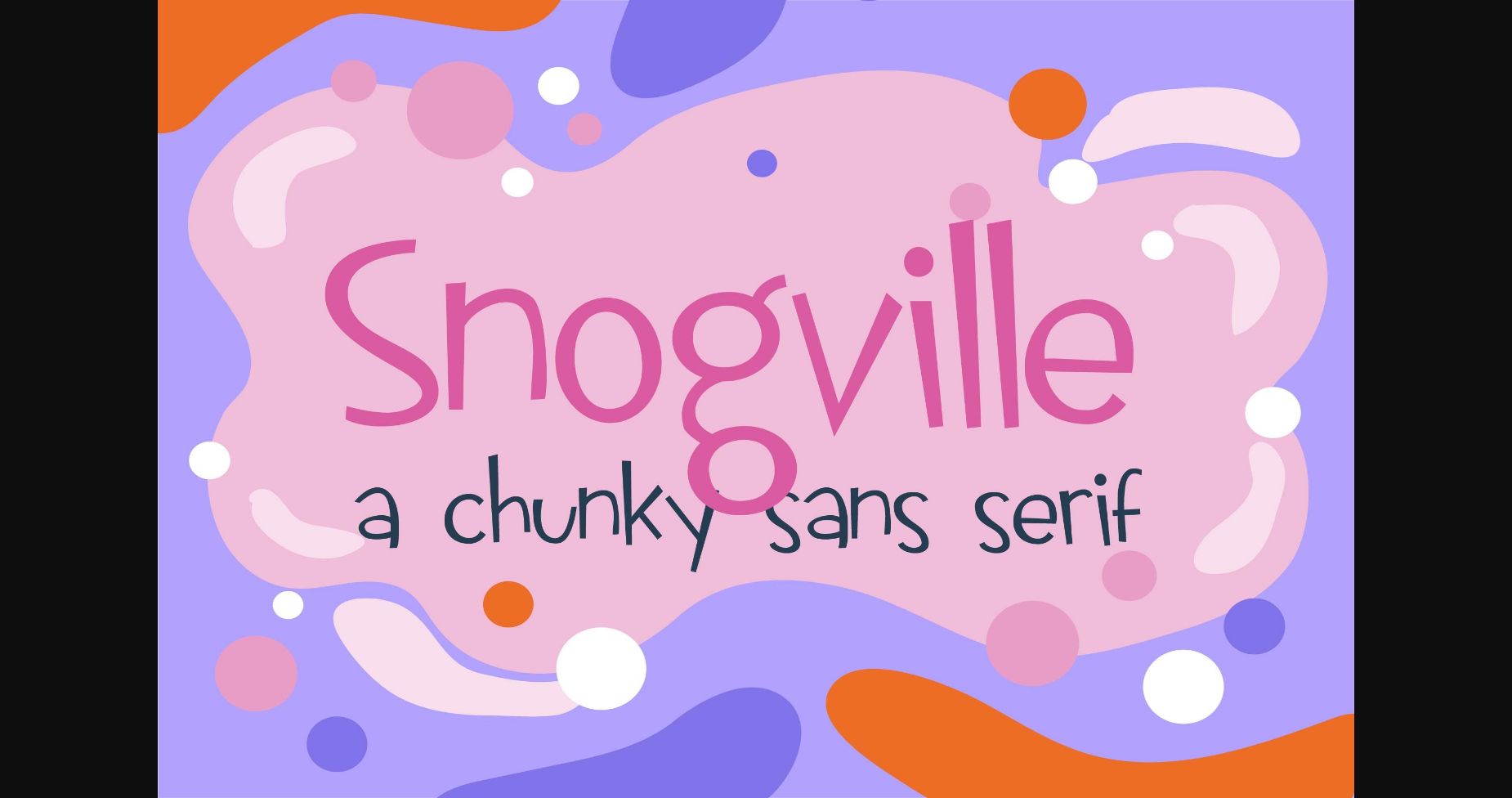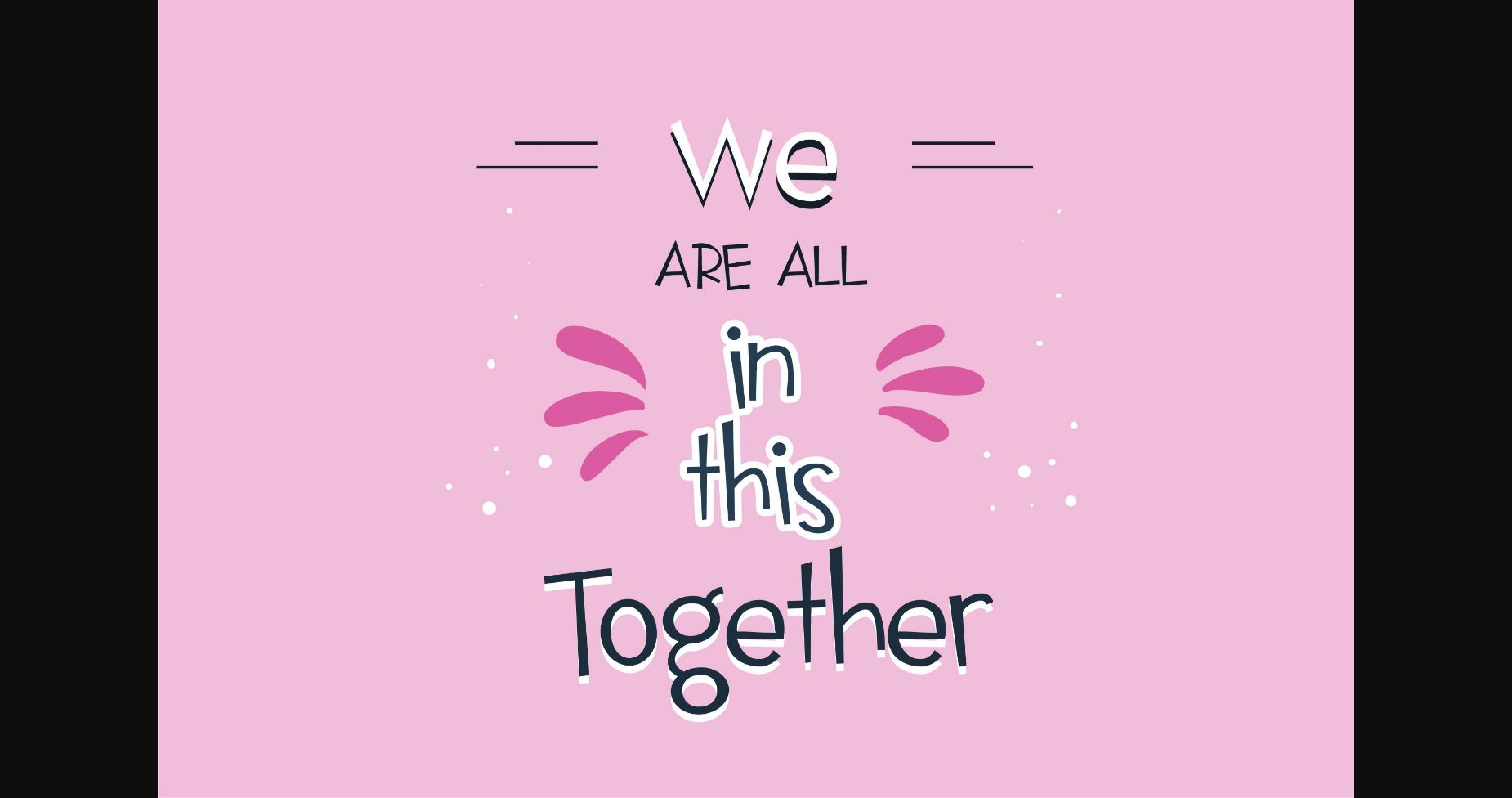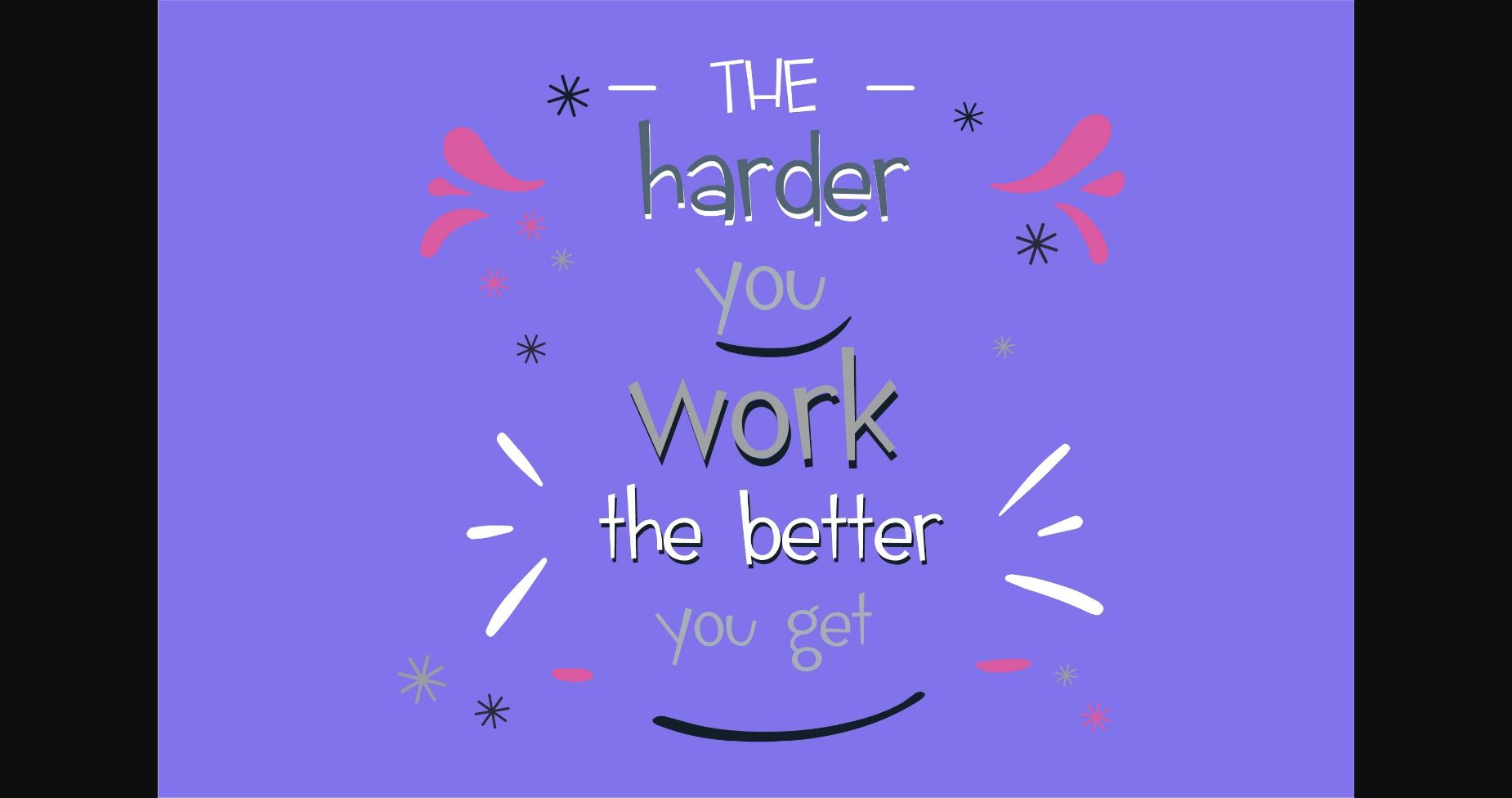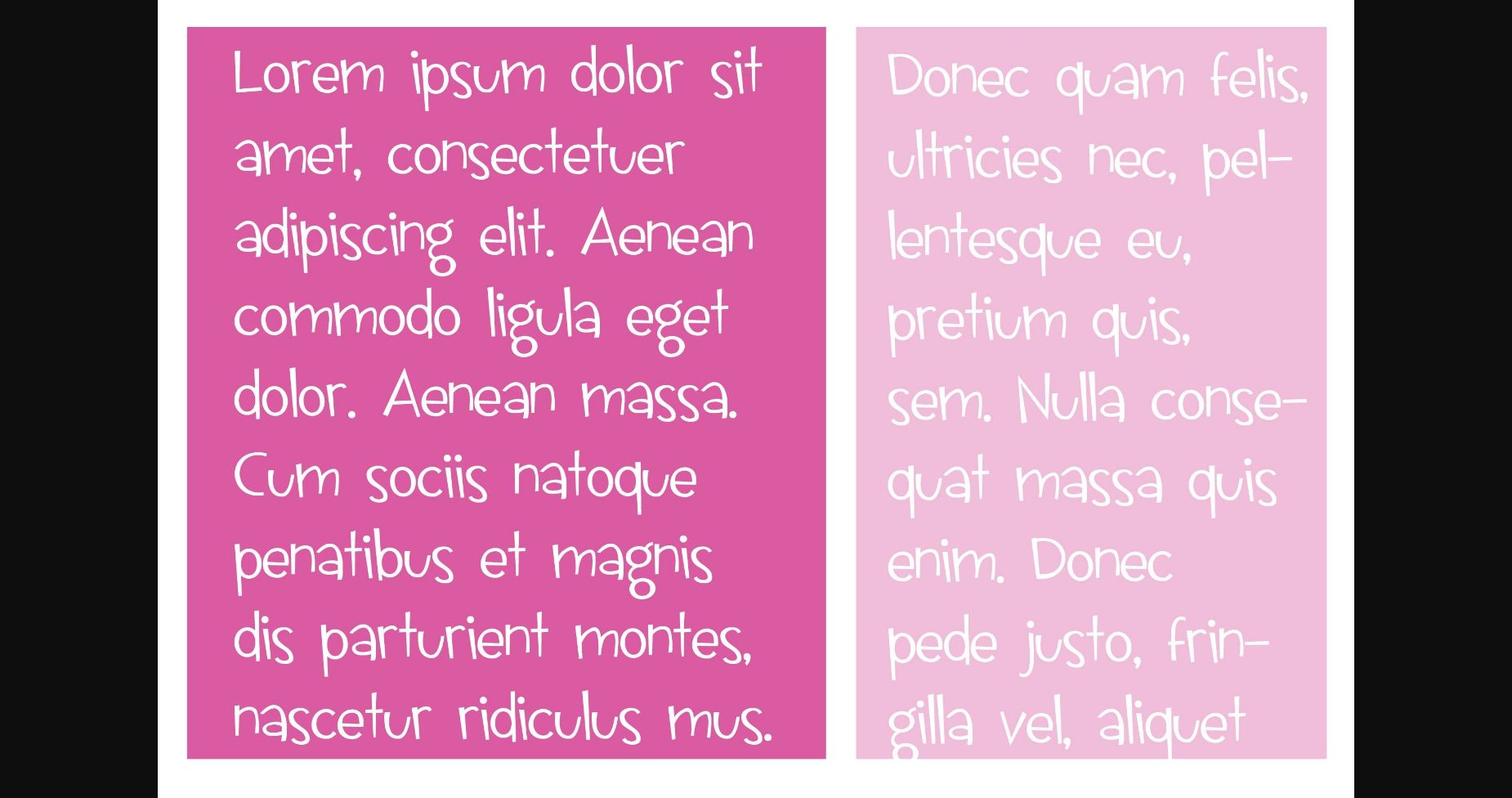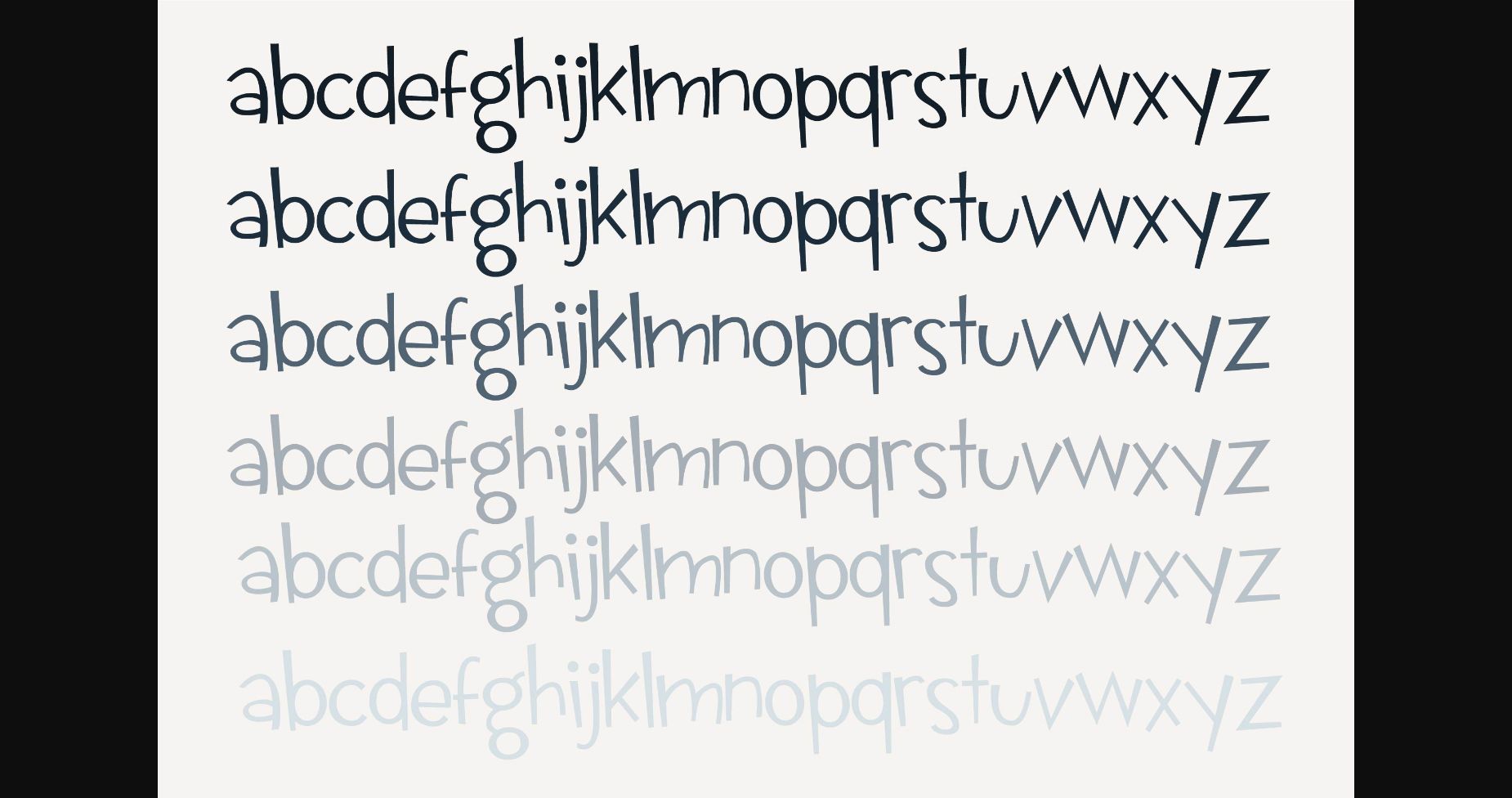
Snogville Font
About Snogville Font
This hand-written sans serif font is youthful and silly with a mix of thick and thin lines. It looks fun and inviting, perfect for a very creative design project!